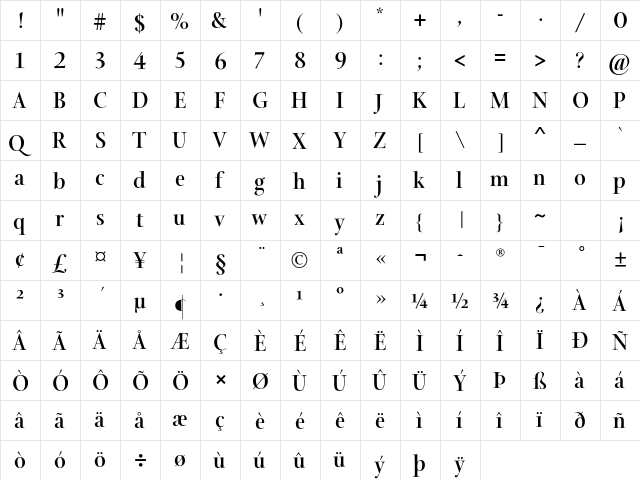
Arepo Std Bold Font Preview
Arepo Std Bold
Design Context for Arepo Std Typeface
Arepo Std takes a measured approach to typography — its balanced proportions and neutral character make it a reliable workhorse for both digital and print work. Its bold stroke weight gives it real presence on the page.